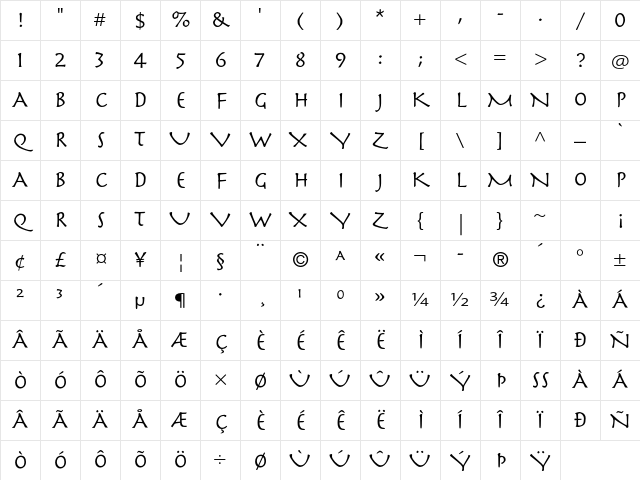
Complete Herculanum LT Std Roman glyph index. Displaying only characters natively supported by Herculanum LT Std Roman font.
Herculanum LT Std is a composed and adaptable typeface that performs quietly and consistently across a wide range of design contexts. Its slender proportions lend an understated elegance to any composition.